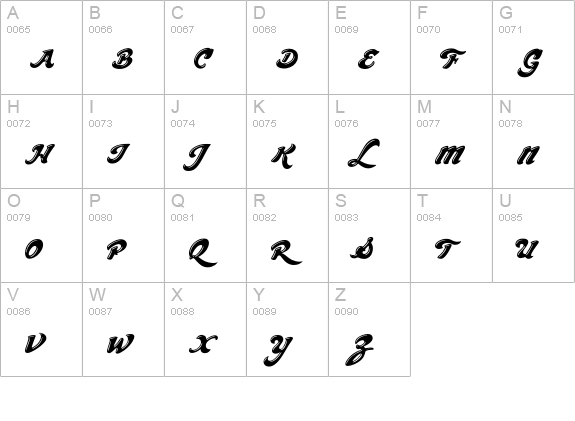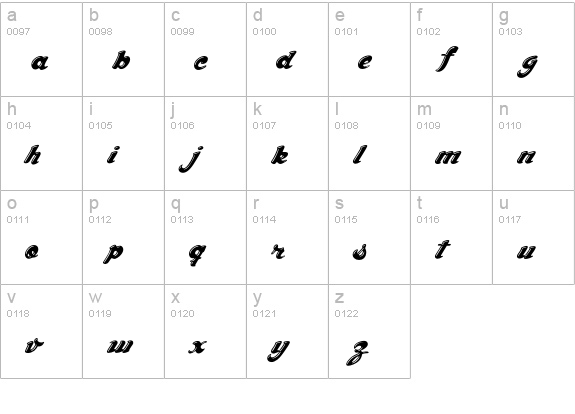
Chocolate Dealer Bold Font Details
Chocolate Dealer Bold is a strong, high-contrast variant in the Chocolate typeface family \xE2\x80\x94 well suited to headlines, attention-grabbing titles, and strong calls-to-action.
Introducing Chocolate Dealer Bold, a font that will satisfy your deepest typographical cravings! This bold and delicious typeface is designed to make a bold statement in your designs, adding a touch of sophistication and elegance. With its smooth curves and strong lines, Chocolate Dealer Bold is the perfect choice for creating eye-catching headlines, logos, packaging, and more. But what sets Chocolate Dealer Bold apart is its generous spirit. It comes with a delightful surprise - it is completely free! Yes, you heard it right. This extraordinary font is freely available to download at FontsMarket.com, making it accessible to designers and creatives from all walks of life. Imagine the possibilities with Chocolate Dealer Bold. Let your creativity run wild as you experiment with its bold and captivating letterforms. Whether you're designing a tempting chocolate brand, a luxurious fashion label, or a mouthwatering food blog, this font will add the perfect touch of elegance and style. With its versatile nature, Chocolate Dealer Bold can seamlessly adapt to any design project, from print to digital. Its high legibility ensures that your message will be conveyed with clarity and impact, while its unique personality adds a touch of sophistication that will set your designs apart from the crowd. So go ahead, indulge in the sweet and decadent experience of Chocolate Dealer Bold. Download it for free at FontsMarket.com and embark on a typographical adventure that will leave a lasting impression. Get ready to elevate your designs to new heights with this bold and irresistible font.